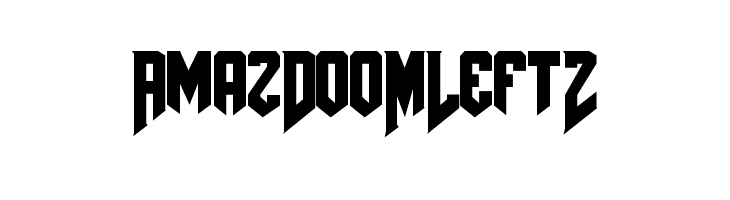
A futuristic, angular font with geometric shapes and consistent stroke thickness.
( Fonts by Gassstype )
A bold, modern sans-serif font with clean lines and uniform stroke widths.
( Fonts by Ameerazan Studio - Personal-use only. For commercial use please contact owner. )
An elegant script font with flowing, ornate cursive letters.
( Fonts by Zetafonts )
A bold, modern font with thick strokes and tight spacing, ideal for headlines.
( Fonts by Marc Lohner )
A playful, rounded font with bold, smooth curves and a friendly appearance.
( Fonts by JoannaVu - https://ioannaladopoulou.design - Personal-use only. For commercial use please contact owner. )